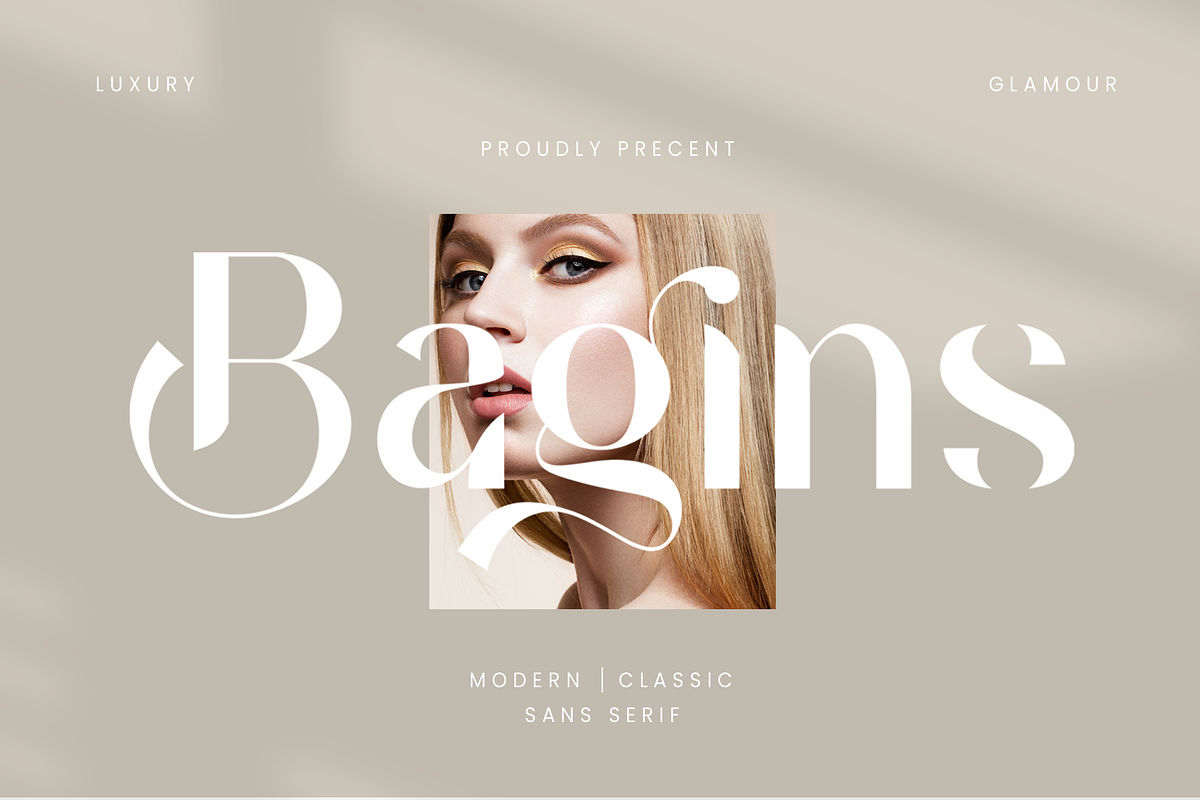
Bagins Sans Serif Font Free Download
The Bagins Sans Serif Font Free Download is a clean, modern typeface designed for versatility and readability. Perfect for creating sleek, professional designs like logos, branding, websites, and social media graphics, this font provides a sharp, contemporary look. Please note, for commercial use, a license must be purchased. You can download it for free for testing purposes.
With its simple yet elegant design, the Bagins Sans Serif Font Free Download is ideal for projects that require a modern and minimalist aesthetic. Whether you're designing for digital content, print materials, or promotional campaigns, this font ensures your work remains clear, stylish, and on-trend.